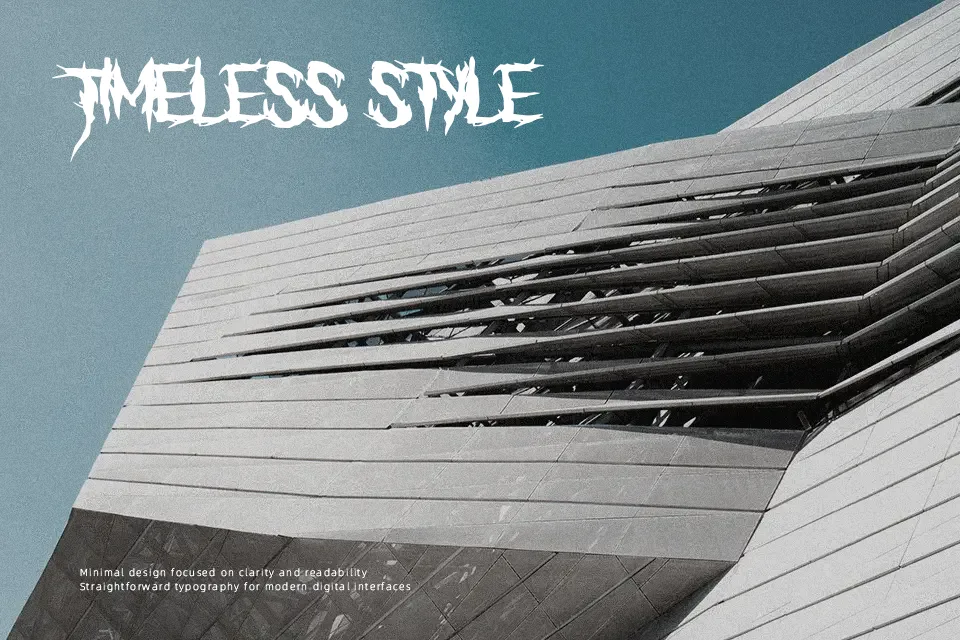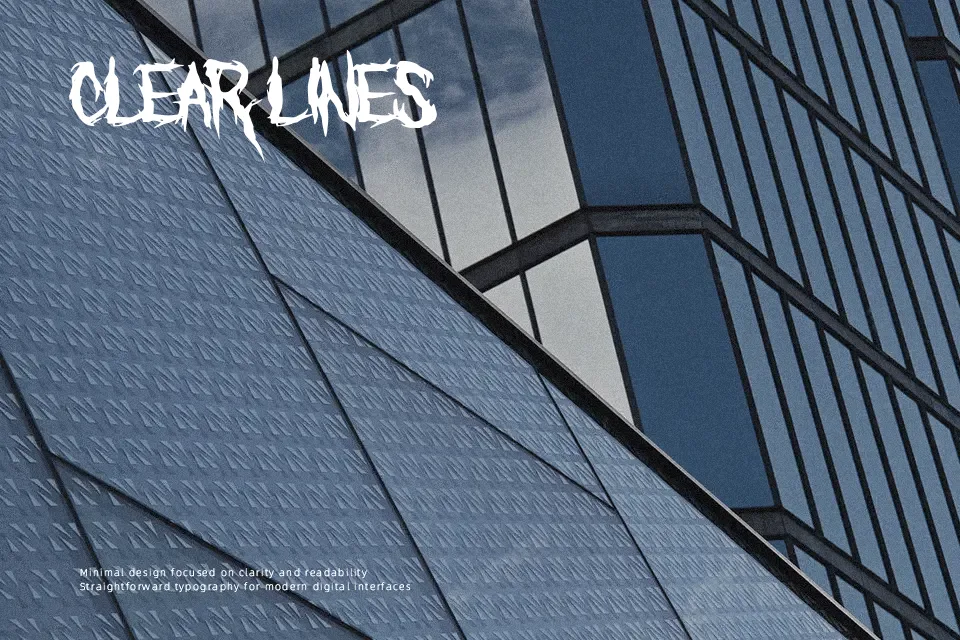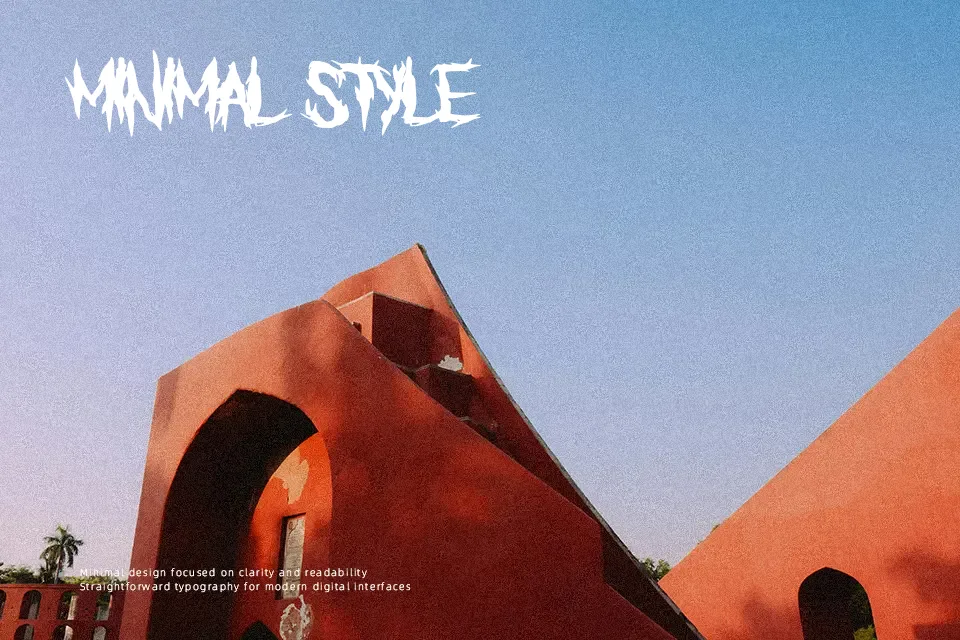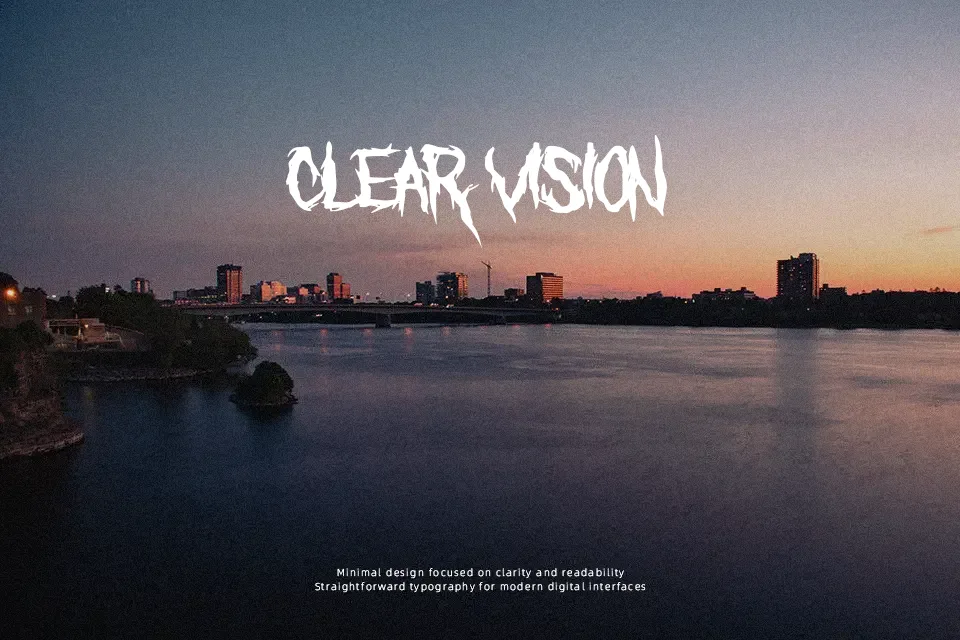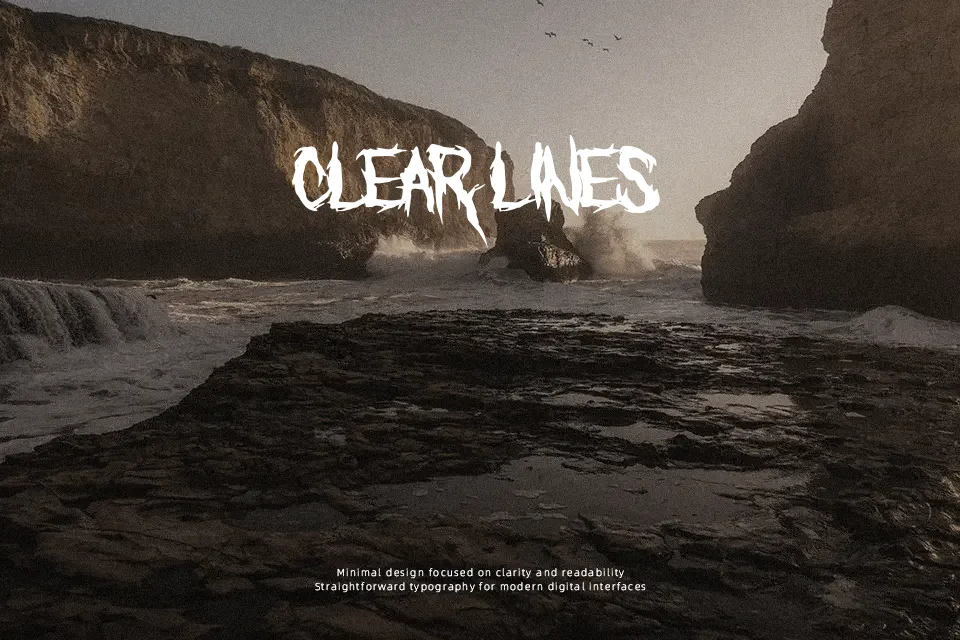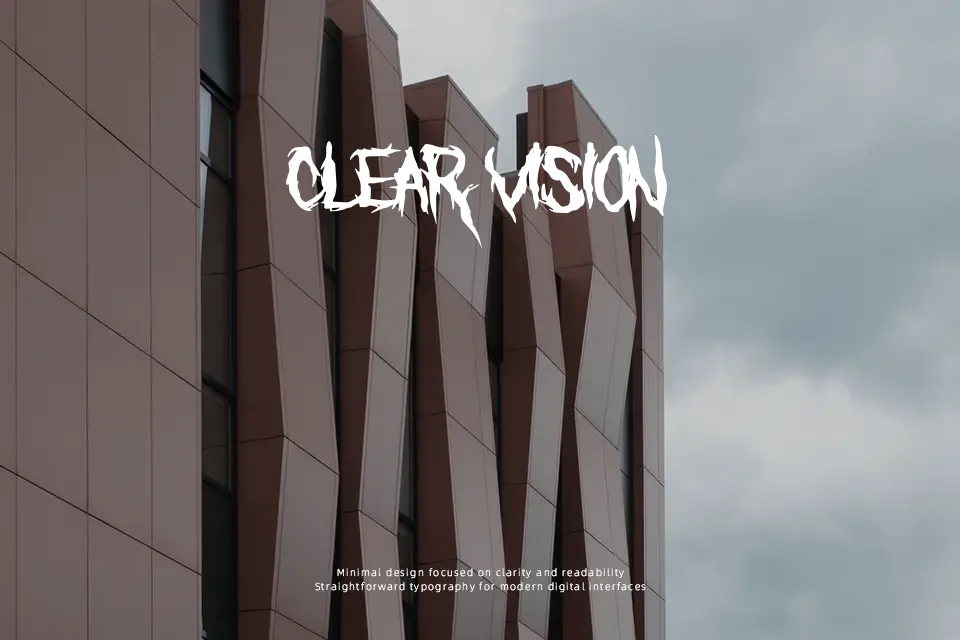
The Defiler Font
The Defiler Font commands attention through jagged, barbed letterforms built with erratic scratch-like strokes and fiercely pointed terminals. Its condensed silhouette and irregular exterior spikes create uneven inter-character spacing that heightens dramatic tension across short headlines. Lowercase and uppercase glyphs share a frantic, claw-cut rhythm best suited for extreme metal band branding, haunted attraction signage, and horror entertainment packaging. However, the dense decorative thorns severely impair readability in smaller text settings, making the typeface impractical for standard continuous body copy.
Best For: heavy metal album covers, horror movie title graphics, halloween event posters, streetwear apparel graphics
Not Ideal For: continuous body text, mobile interface labels, corporate business reports, dense book typesetting
Perfect for branding, headline, and music, with a dark and decorative style.